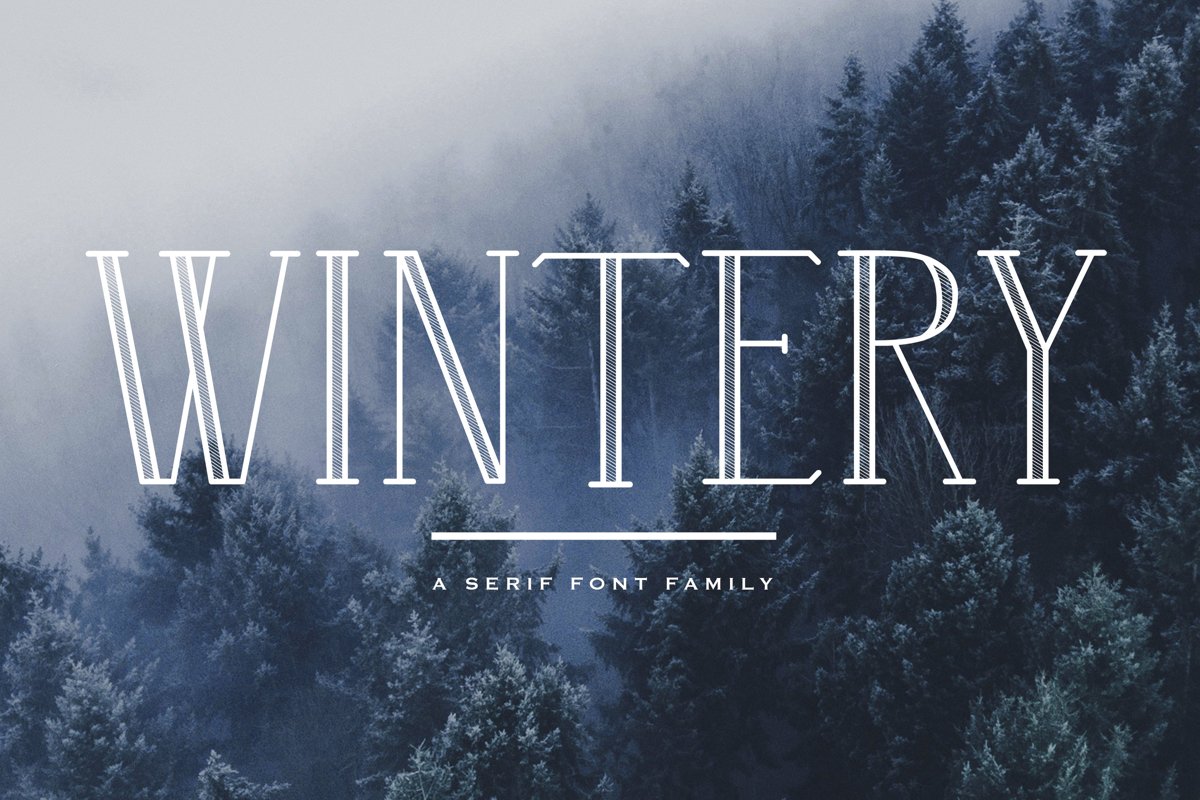
Wintery - A Serif Font Family
Wintery-Regular
Wintery-Outline
Wintery-Hatched
Wintery: an all caps serif font family, with a regular, outline and hatched version. This elegant font with its straight lines and alternate versions will help you create a classy holiday design.